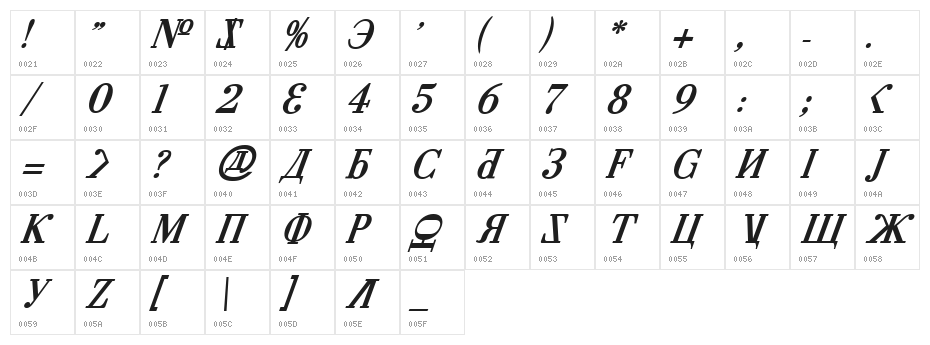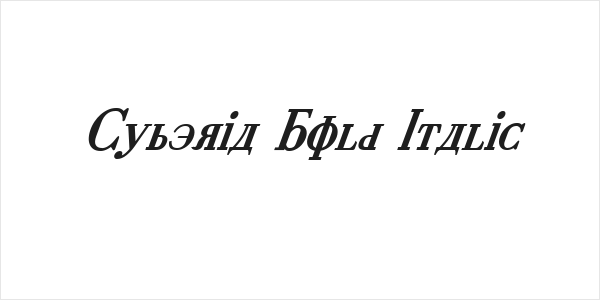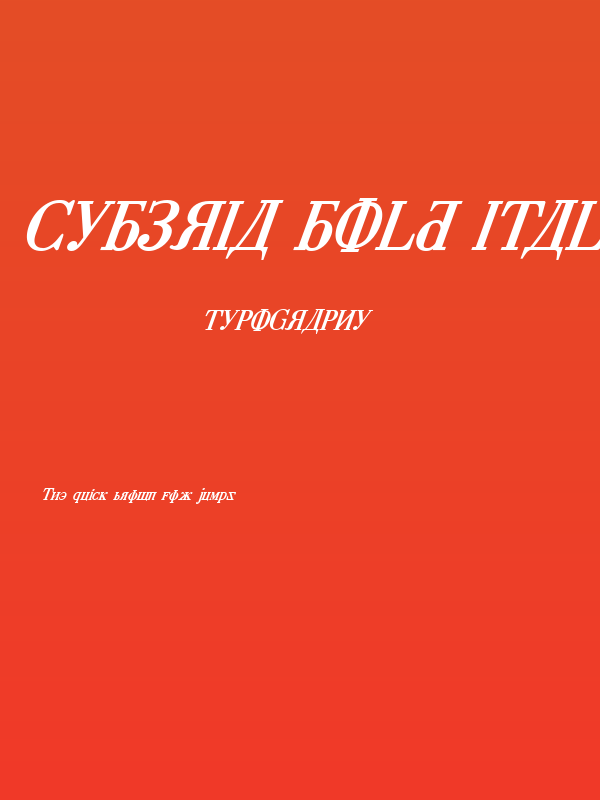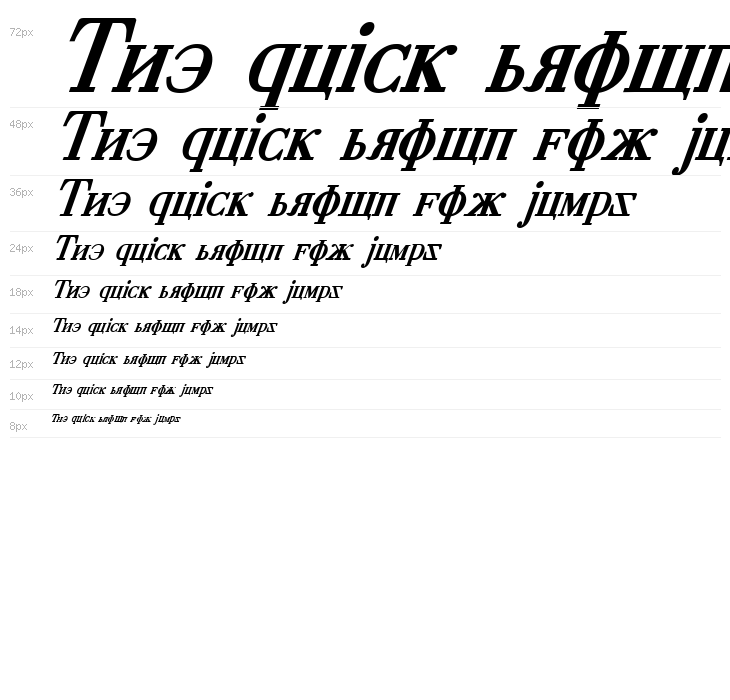
Cyberia Bold Italic Font
Cyberia Bold Italic Description
This font exhibits a bold and italicized style with a distinct slant, giving it a dynamic and energetic appearance. The characters are well-defined with sharp edges and a consistent stroke width, contributing to its boldness. The italicization adds a sense of movement and fluidity, making it suitable for attention-grabbing headlines or titles. The numerals and special characters maintain the same stylistic features, ensuring uniformity across all elements. The font's design is modern and sleek, with a touch of sophistication, making it versatile for various design applications.